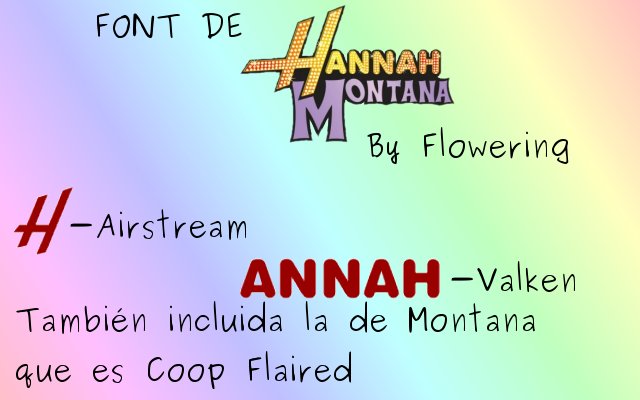
Typography of coop bold by house industries from the typography of coop font collection. V • t • e. Several fonts were used for the album title:
The final season of hannah montana was marketed as hannah montana forever, and incorporated a modified logo. Hanah montana font | dafont.com english français español deutsch italiano português. Ad by agni ardi rein prasetyo.
The text generator section features simple tools that let you create graphics with fonts of different styles as well as various text effects; The “montana” part uses typography of coop flaired from house industries and the “forever. Font meme is a fonts & typography resource.
The “hannah” part is similar to gillies gothic bold (for h) and frankfurter (for annah); Gillies gothic suggested by darkmaxhd. Average rating (no votes) 1 5.